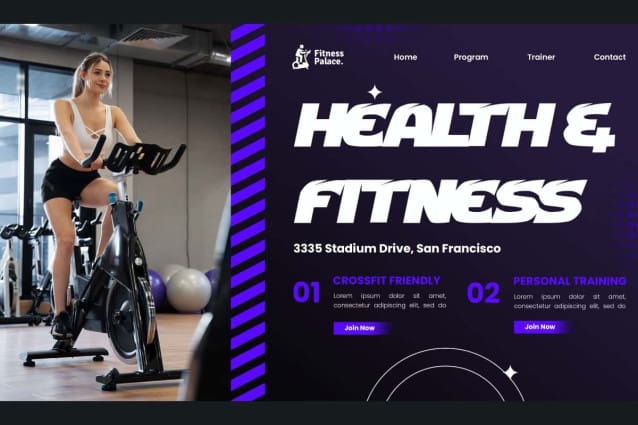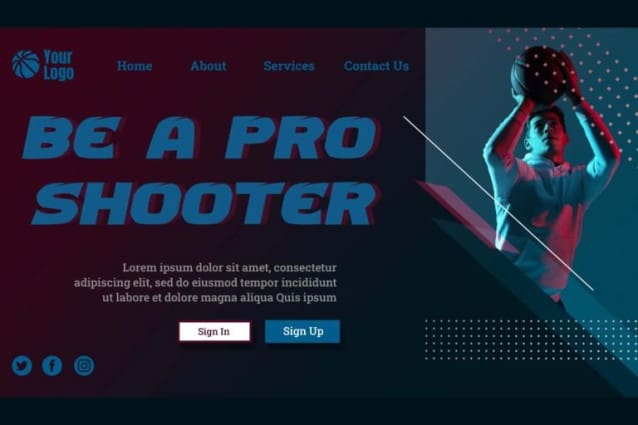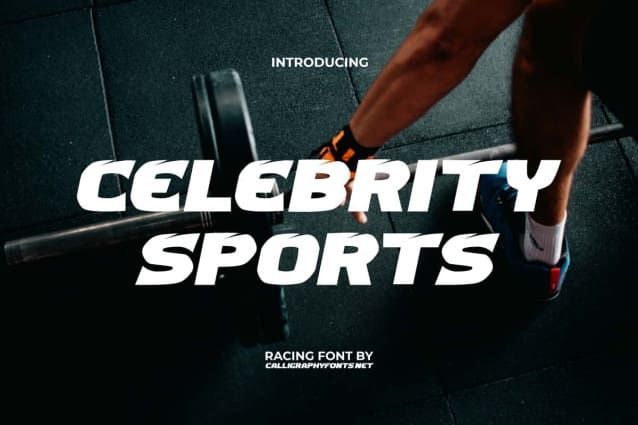
Celebrity Sports Font
Celebrity Sports Font is an awesome sports display font with a bold italic font that is modern and dynamic. Racing style with sharp decorations on the top corners that are consistent to make it look very fast and powerful. Ideal for automotive, fashion, game, gym fitness, racing sports, sports activities, sportwear, tumbler, etc.
Celebrity Sports Font combination of hard and strong style fonts that are comparable in readability and size. Very well designed to dominate the typeface of strength and speed. It’s perfect for brochures, covers, heading, labels, logos and monograms, product packaging, quotes, screen print, stickers, websites or others.